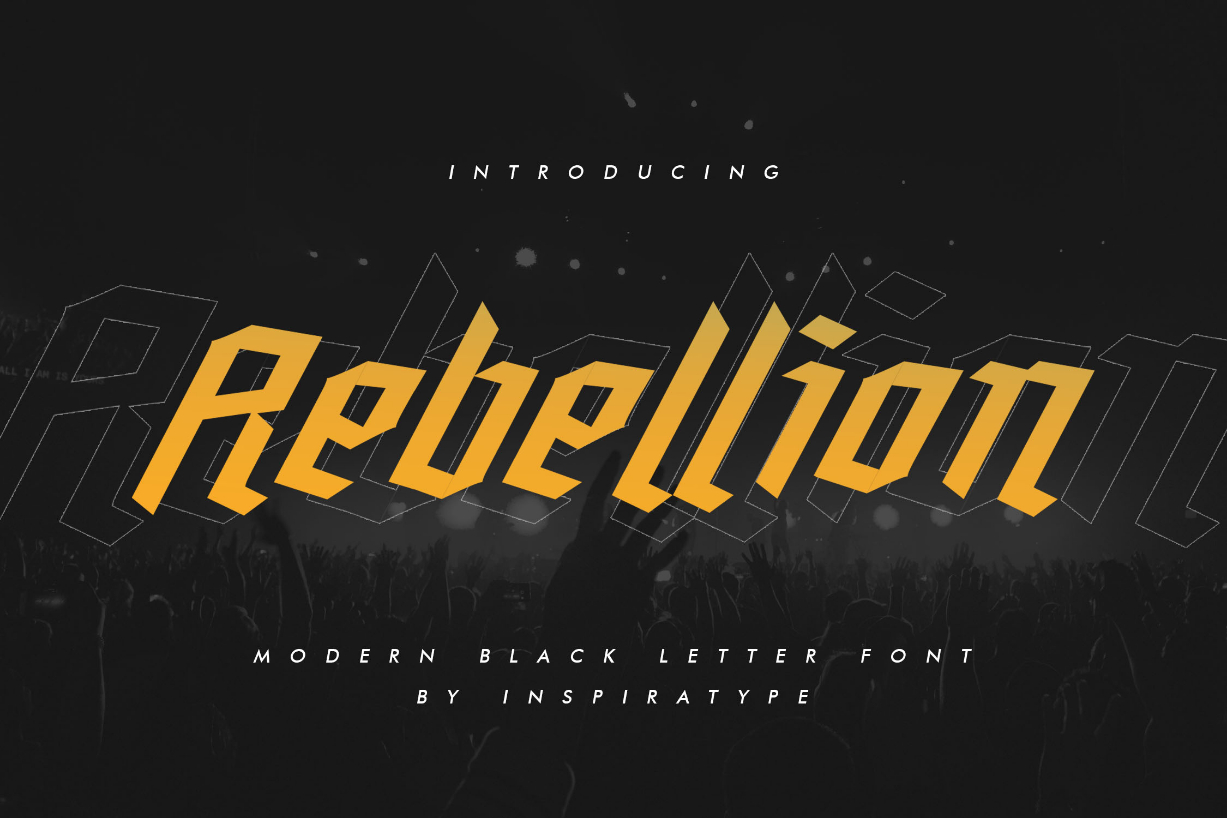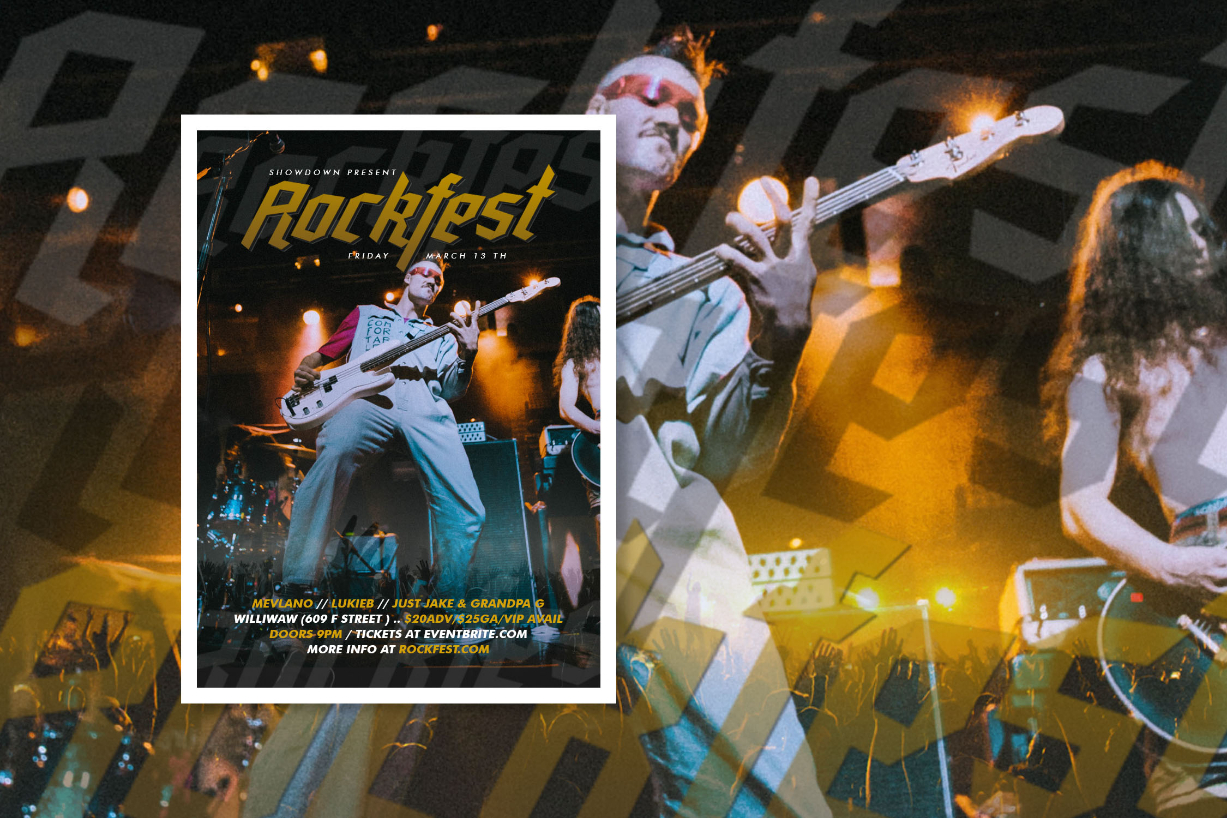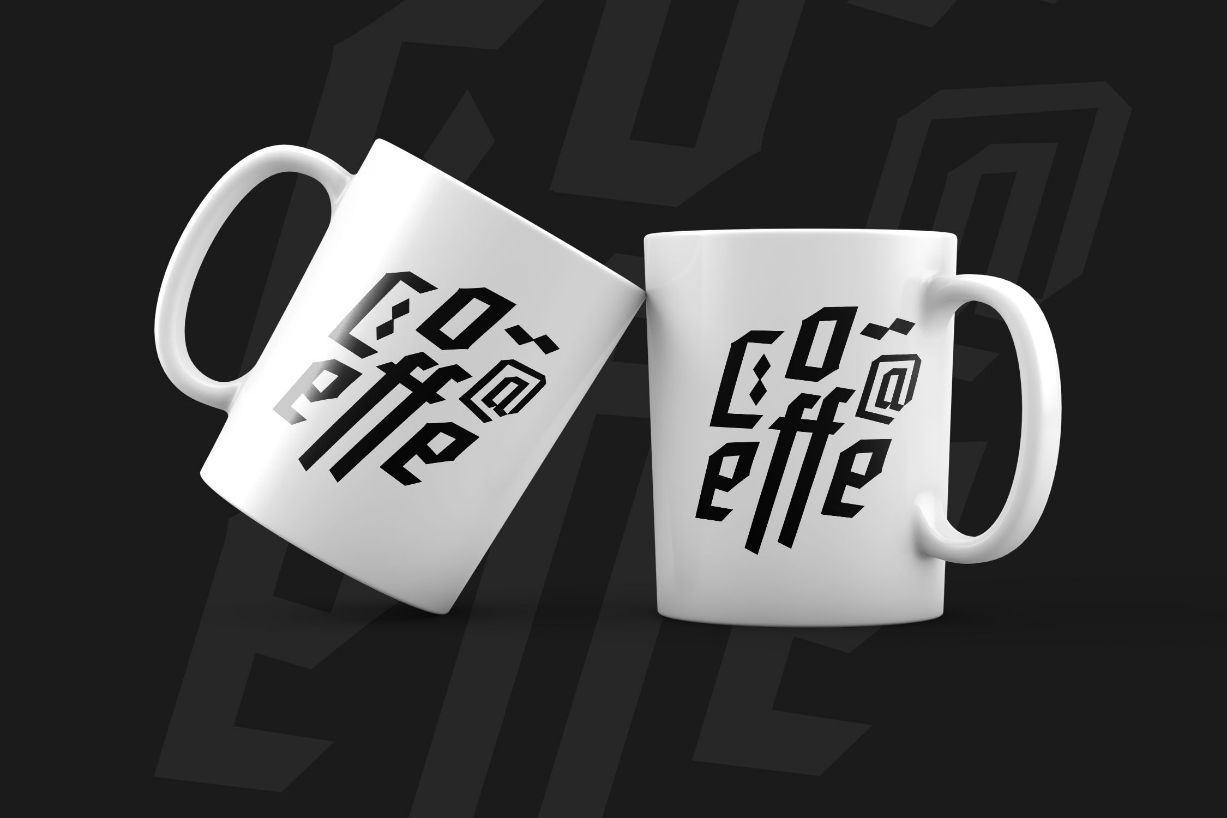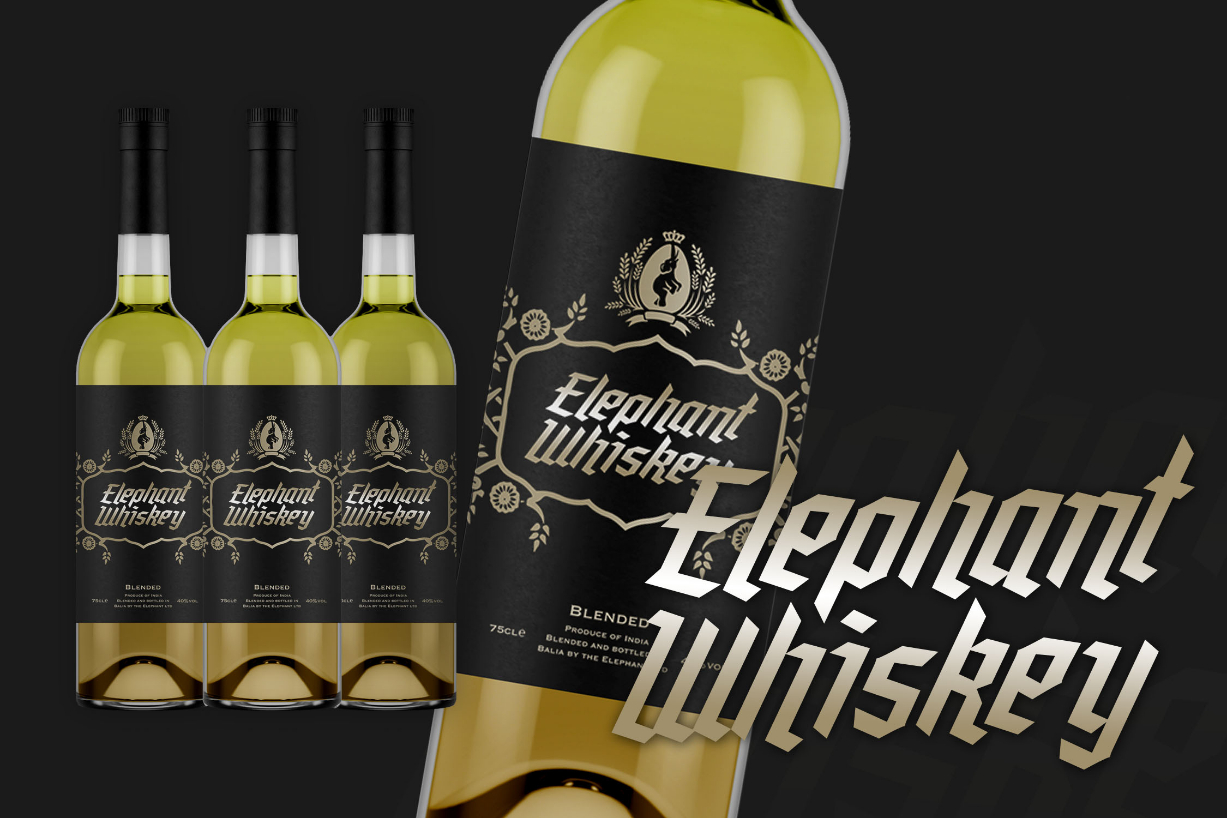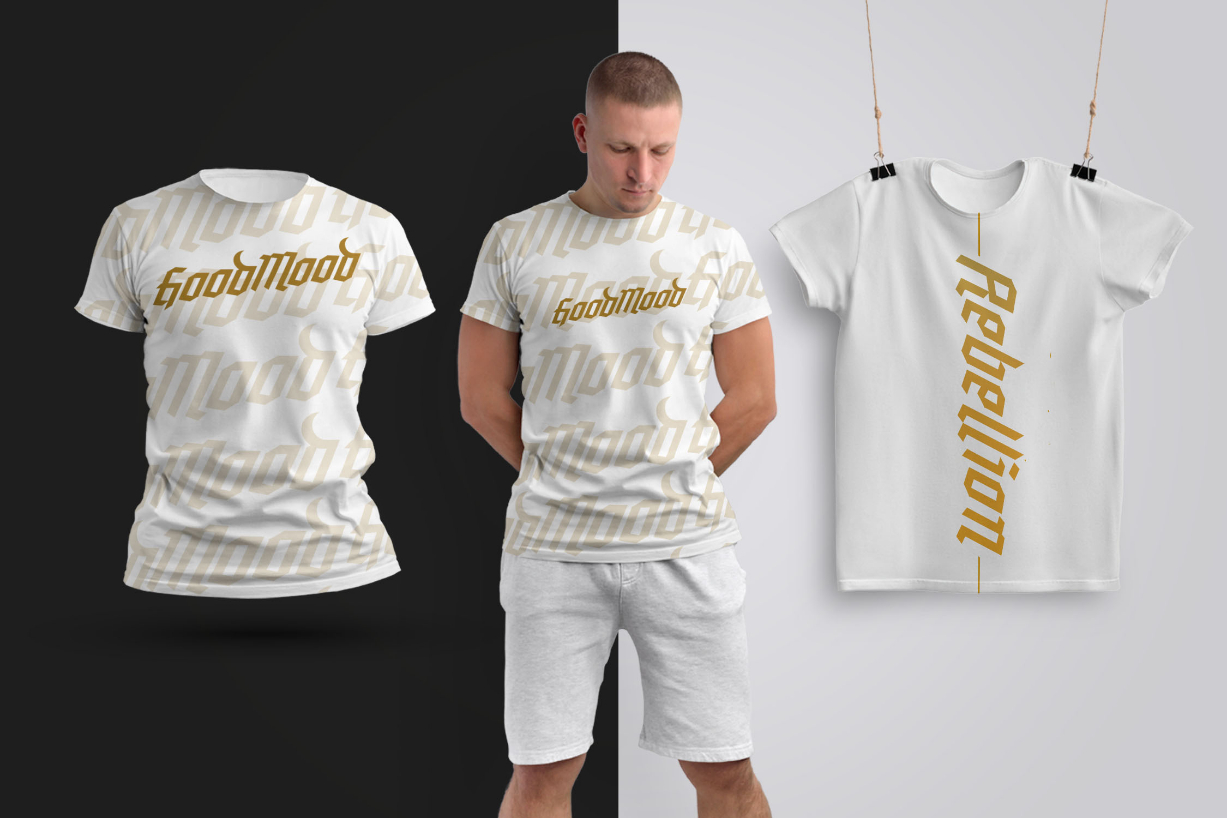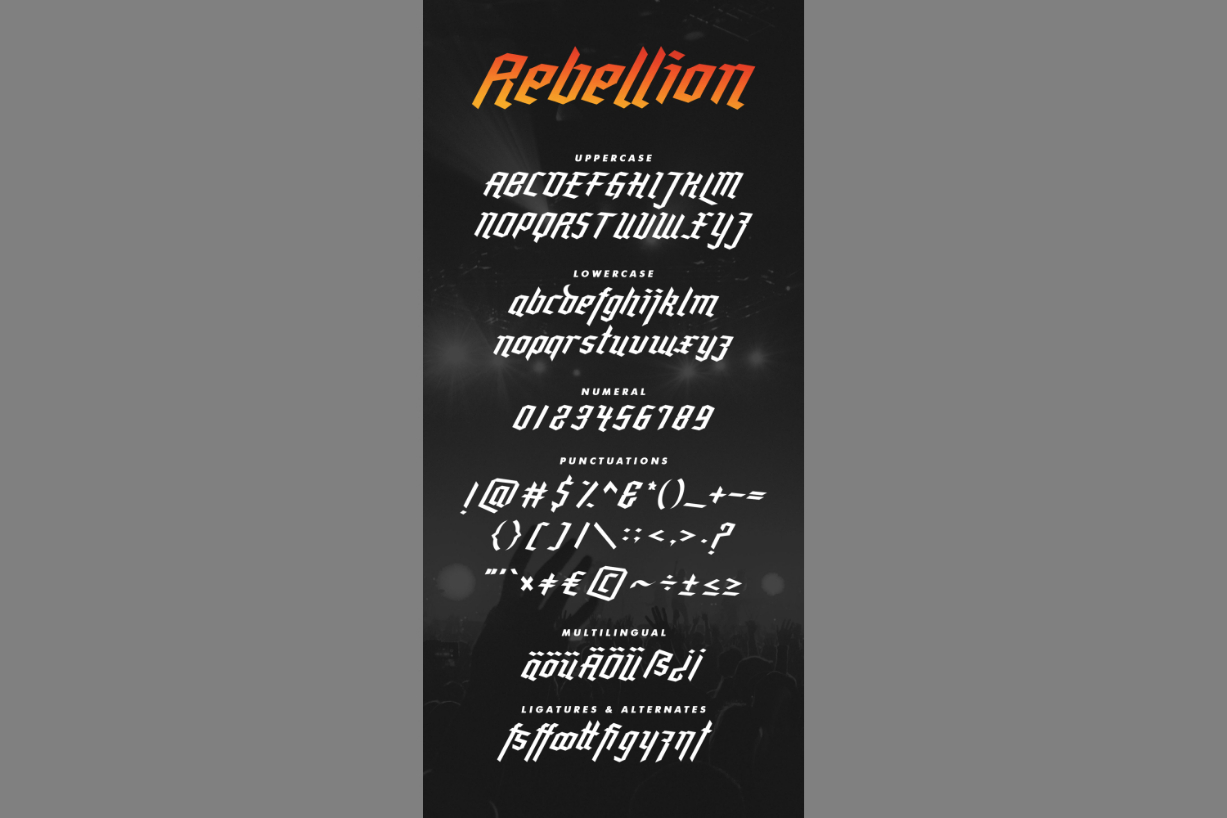
Rebellion Font
About Rebellion Font
Rebellion is an outstanding blackletter font, inspired by classic posters. Rebellion looks bold, yet sophisticated and will be particularly adept when used in logos, branding, packaging design, and much more.
This font will turn your creative ideas into a true piece of art.